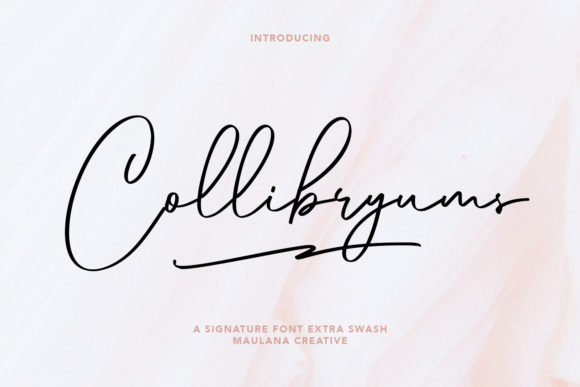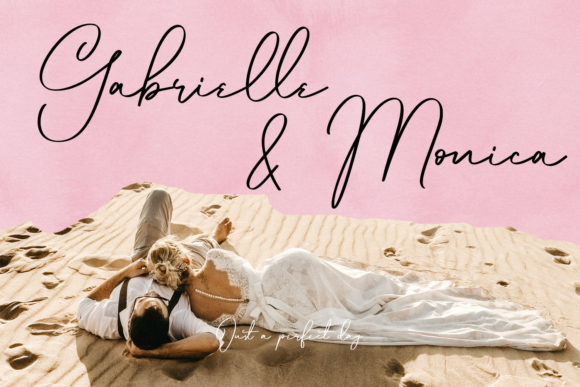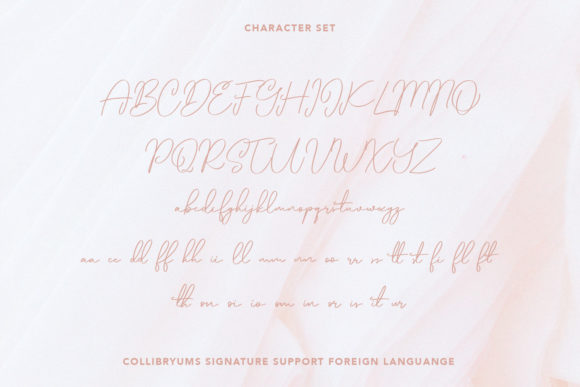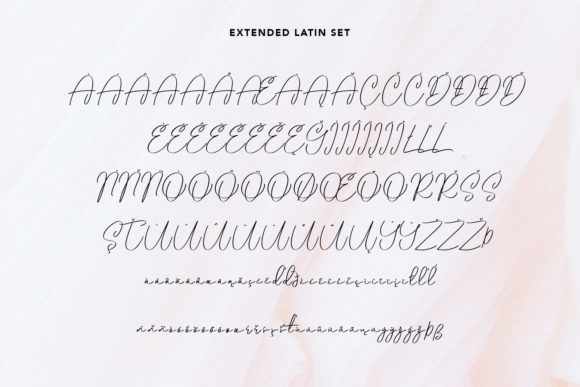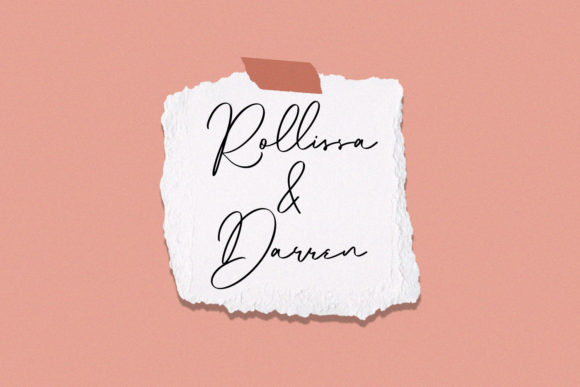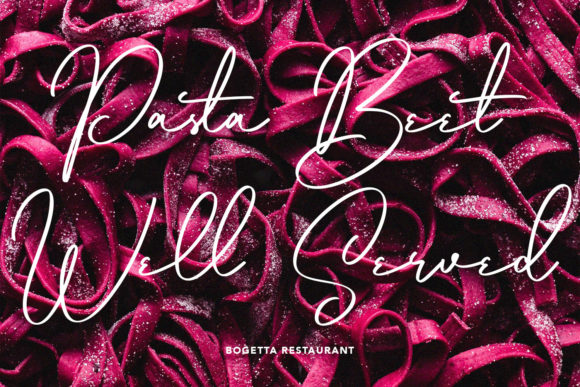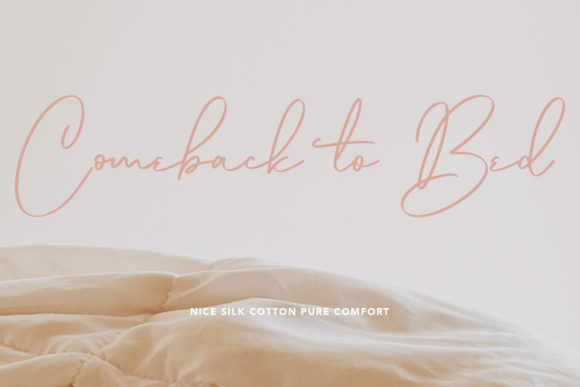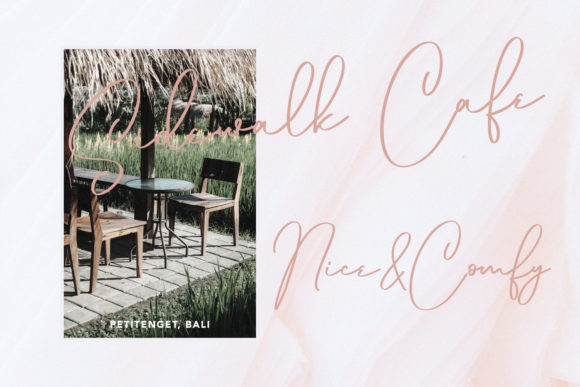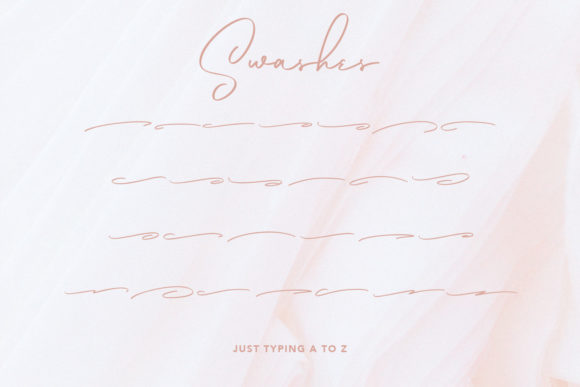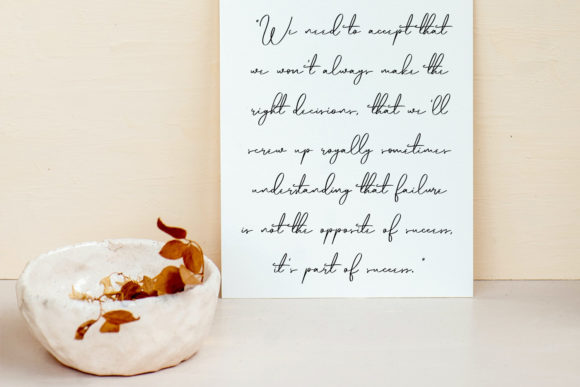
Collibryums Font
About Collibryums Font
Collibryums is a stunning handwritten font that will captivate you with its unique and timeless style. With its distinctive letterforms and elegant strokes, this font brings a touch of beauty and sophistication to any design project.
The charm of Collibryums lies in its completely different and unconventional style. It stands out from other fonts with its handcrafted appearance and artistic flair. Whether you’re creating wedding invitations, branding materials, greeting cards, or social media posts, Collibryums will add a special touch to your designs.
The timeless quality of Collibryums ensures that it remains relevant and captivating across different design trends and eras. Its versatility allows it to adapt to a wide range of themes and aesthetics, making it suitable for various projects. From vintage-inspired designs to modern and minimalist concepts, Collibryums effortlessly complements your creative vision.
The handwritten nature of Collibryums adds a personal and authentic touch to your designs. It captures the essence of handcrafted artistry and gives your projects a warm and inviting feel. Whether you’re using it for headlines, titles, or body text, Collibryums creates a sense of connection and intimacy with your audience.
When it comes to branding, Collibryums sets your business apart with its unique and memorable style. Use it to create a logo that conveys your brand’s personality and values. The distinctive letterforms and artistic flourishes of Collibryums ensure that your brand identity stands out in a crowded market.
Collibryums also shines in the realm of social media and digital graphics. Its eye-catching and captivating style will make your posts and content stand out in a feed. From inspirational quotes to promotional graphics, Collibryums adds a touch of artistic beauty to your digital presence.
In conclusion, Collibryums is a beautiful handwritten font with a completely different and timeless style. Its unique and captivating qualities make it perfect for creating spectacular designs in various contexts, from wedding invitations to branding materials and social media posts. Fall in love with Collibryums and let its charm elevate your creative projects to new heights.